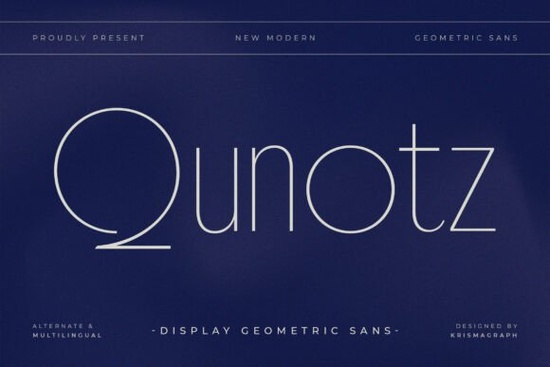
If you're working on a project that calls for quiet confidence rather than loud impact, the Qunotz Font might be exactly what your design needs. This ultra-thin geometric sans-serif typeface uses negative space as part of its visual language hairline strokes and wide-open counters give it an airy, almost meditative quality. It’s not just minimal; it’s intentional. Built entirely from circular geometry, Qunotz feels both architectural and refined, making it a strong fit for luxury branding where subtlety speaks volumes.
When should you use Qunotz?
Qunotz shines in contexts where elegance and restraint matter most. Think high-end fashion labels, premium skincare packaging, boutique real estate brochures, or identity systems for architecture firms. Because of its extreme thinness, it works best at large display sizes logos, headlines, hero text on websites, or upscale product labels. At smaller sizes, legibility can suffer, so it’s not ideal for body copy or dense layouts.
What sets Qunotz apart is how it balances precision with personality. While many geometric sans-serifs lean into boldness (like those in the futuristic technology bundle), Qunotz opts for whisper-light presence. If your brand voice is calm, curated, and confident not flashy you’ll find this font aligns well with that ethos.
How does it compare to other delicate sans-serifs?
Not all thin fonts are created equal. Some feel fragile; others feel generic. Qunotz avoids both pitfalls through strict geometric construction and thoughtful spacing. For contrast, consider Katur Coffee, which blends soft curves with a handcrafted warmth great for cafés or artisanal goods but less suited for minimalist luxury. Or take Rain Jungle, which leans into organic fluidity rather than hard-edged geometry.
If you need something with more versatility across weights, Realic offers a broader range while keeping a clean aesthetic. And for wanderlust-inspired projects with a modern twist, Highland Wanders brings in subtle rustic charm without sacrificing readability. But when your goal is stark, serene sophistication, Qunotz stands alone.
Does it support international projects?
Yes. Qunotz includes alternate characters and multilingual support, covering Western, Central, and Eastern European languages. That makes it practical for global brands or designers creating bilingual packaging, signage, or digital experiences. The alternates also let you fine-tune letterforms for better visual rhythm especially useful in logotype work where every curve matters.
Keep in mind: because of its ultra-thin strokes, printing Qunotz requires high-resolution output and careful material choices. On uncoated paper or low-DPI screens, the hairlines may disappear or break up. Always test print before committing to large production runs.
Who is this font really for?
- Luxury brand designers crafting identities for jewelry, cosmetics, or high-end hospitality
- Print-on-demand sellers creating premium quote prints, wall art, or minimalist greeting cards
- Small business owners launching a boutique product line who want typography that feels exclusive
- Crafters and hobbyists experimenting with layered vinyl cuts or laser engraving where fine lines add delicacy
It’s less suited for everyday business documents, social media graphics with small text, or any context where quick readability trumps aesthetic nuance.
Before you download Qunotz, ask yourself:
- Will my final output support ultra-thin strokes? (e.g., high-res print, vector formats, crisp screens)
- Is my audience expecting understated elegance over bold immediacy?
- Do I have a backup font for body text or smaller applications?
- Am I using it at display size ideally above 36pt?
If you answered “yes” to most of these, Qunotz could become a go-to in your luxury design toolkit. Just remember: with great thinness comes great responsibility. Use it thoughtfully, and it’ll reward you with unmatched refinement.